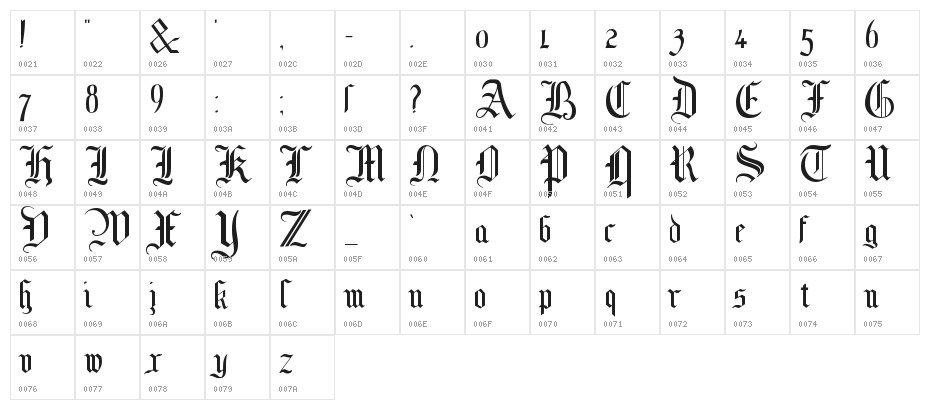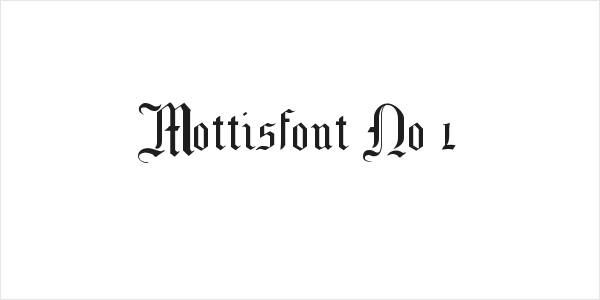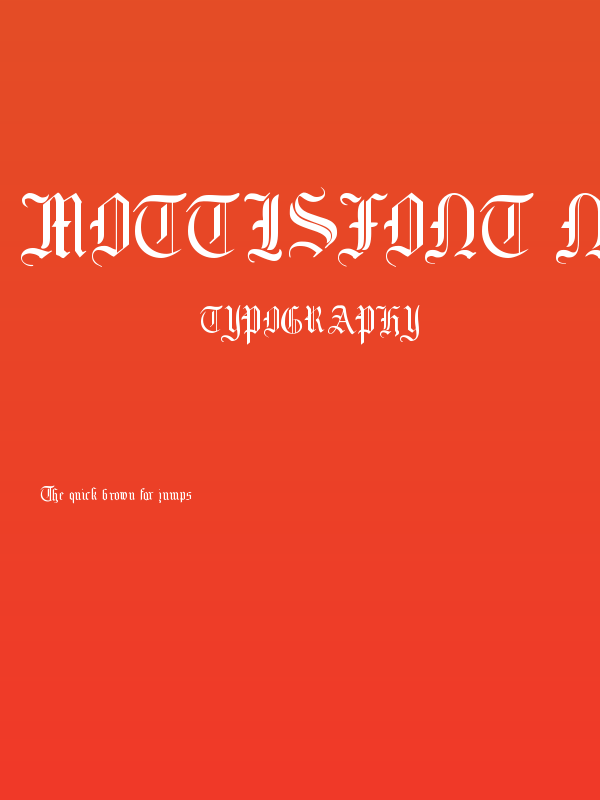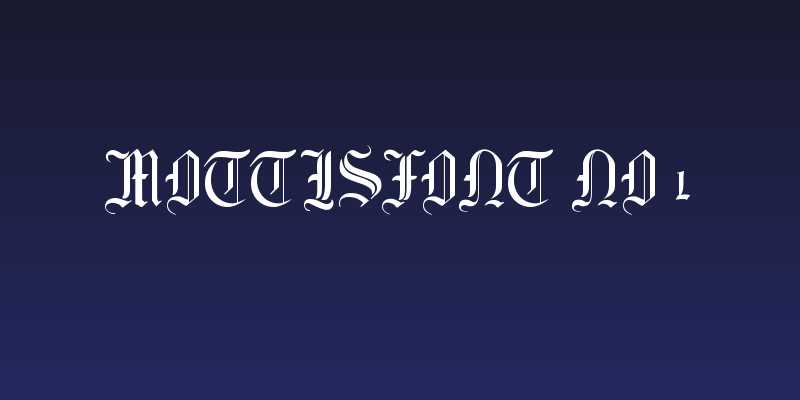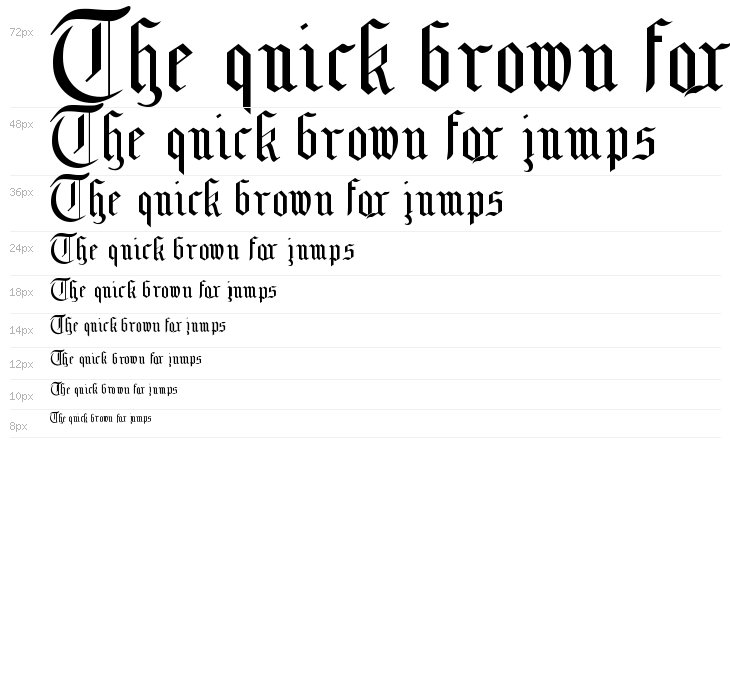
Mottisfont No 1 Font
Mottisfont No 1 Description
This font embodies a classic blackletter style, characterized by its intricate and ornate letterforms. The uppercase letters feature dramatic flourishes and sharp angles, creating a sense of historical elegance. The lowercase letters maintain the same decorative style, with consistent stroke widths and pointed serifs that enhance the font's traditional appearance. The numerals are bold and distinct, complementing the overall aesthetic. Special characters are designed with the same attention to detail, ensuring a cohesive look throughout. This font is ideal for projects that require a touch of medieval or gothic flair.
| Proposed Projects | Ideal for historical documents, gothic-themed designs, book covers, and event invitations. |